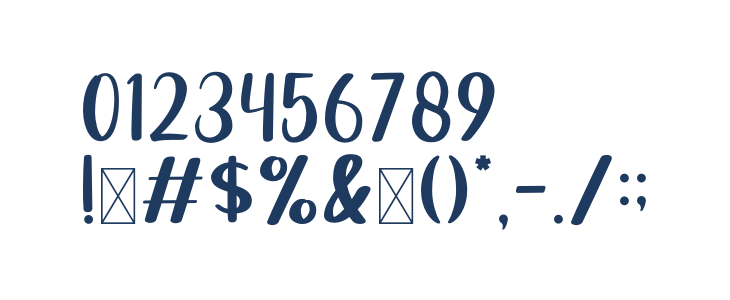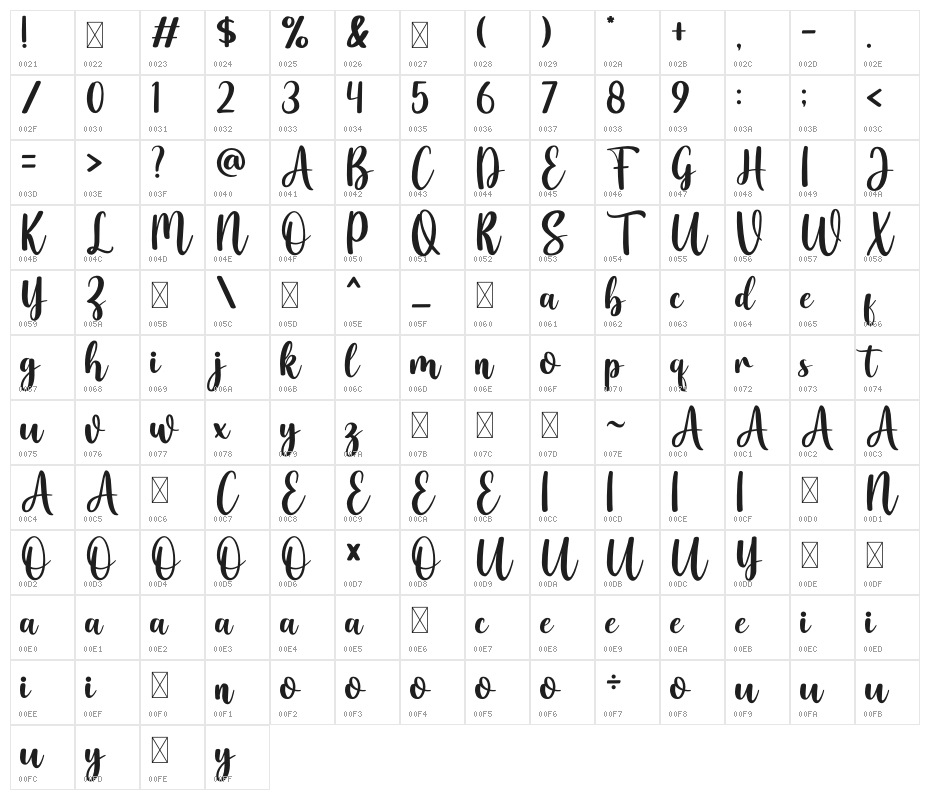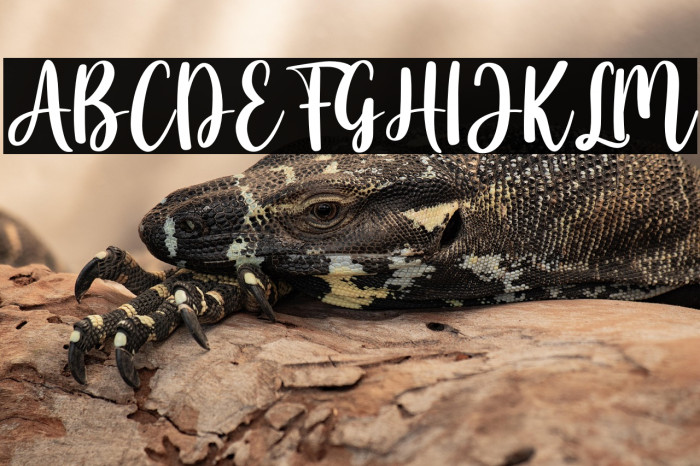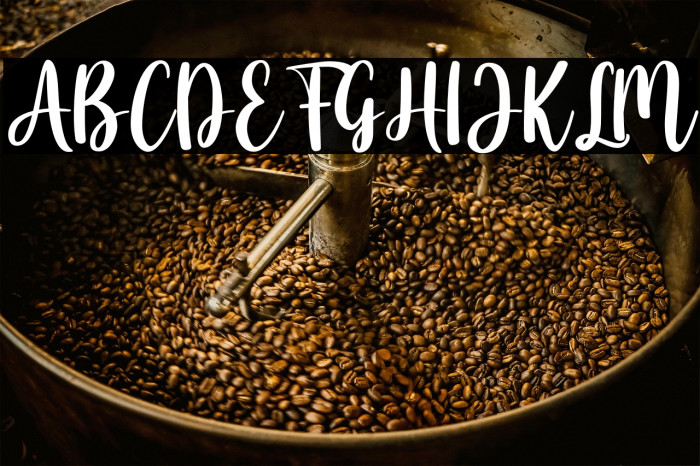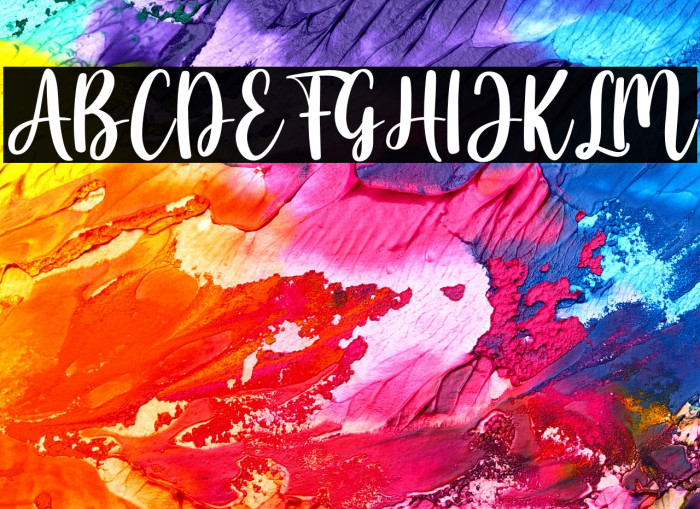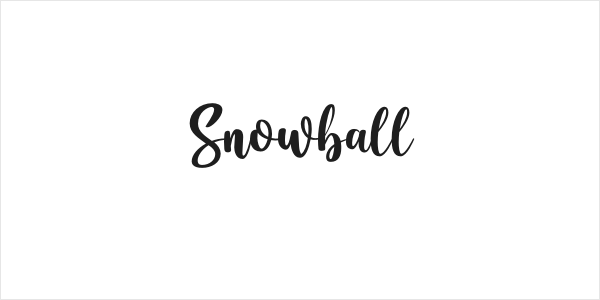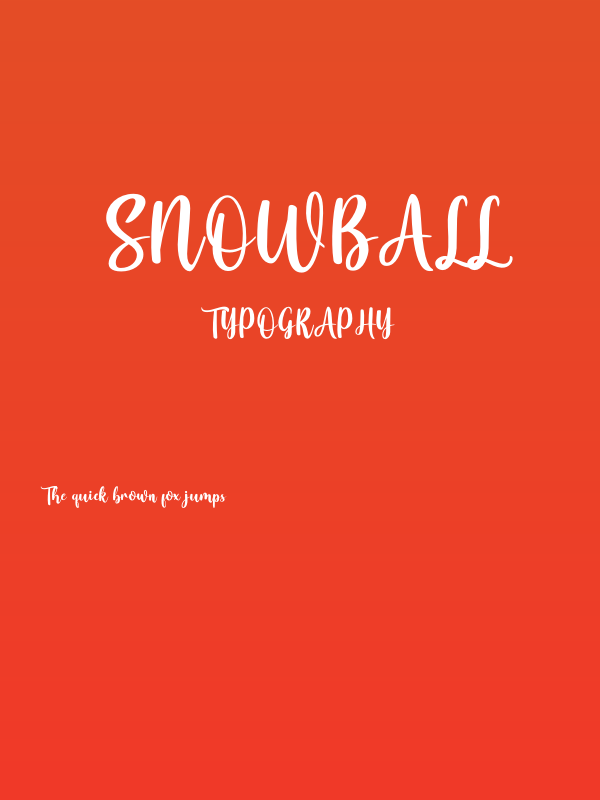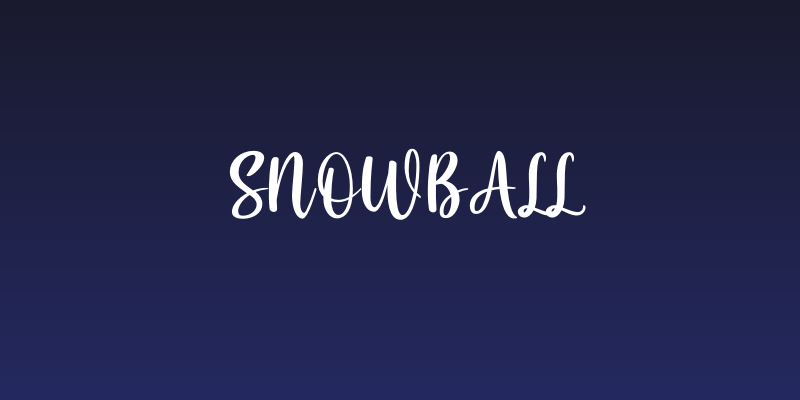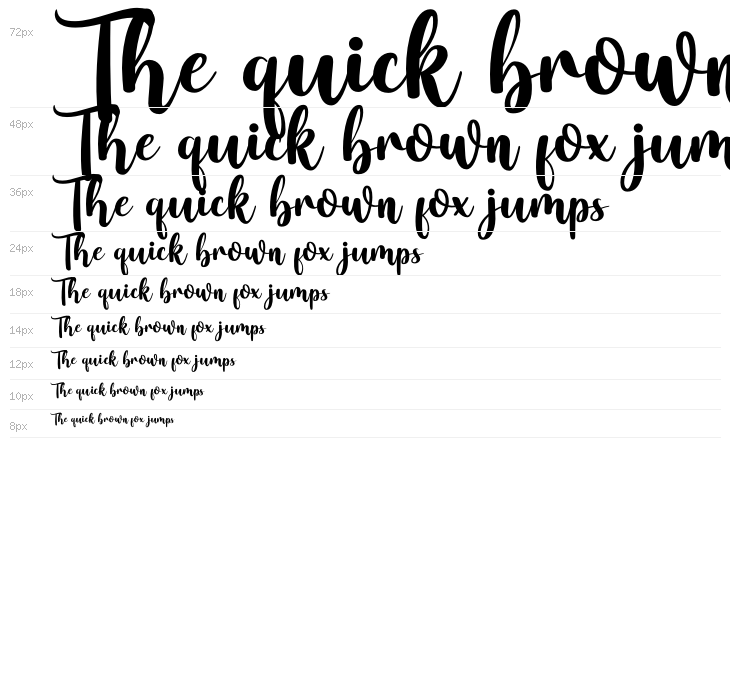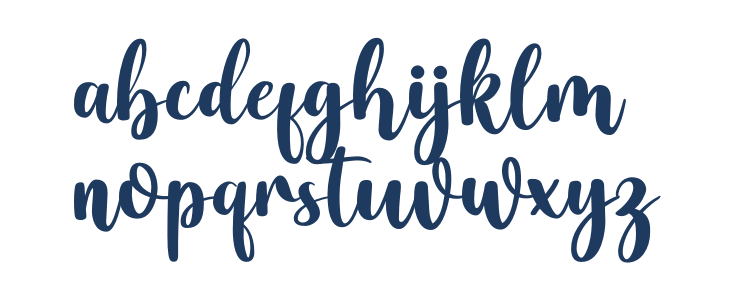
Snowball Font
Snowball Description
This font features a lively and expressive script style with a handwritten appearance. The letters are connected, creating a fluid and dynamic look. The uppercase characters are bold and slightly slanted, while the lowercase letters maintain a consistent flow with occasional flourishes. The numerals are clear and distinct, matching the playful style of the alphabet. Special characters are creatively designed to complement the overall aesthetic. This font is perfect for adding a personal touch to any project, with its bold strokes and artistic flair.